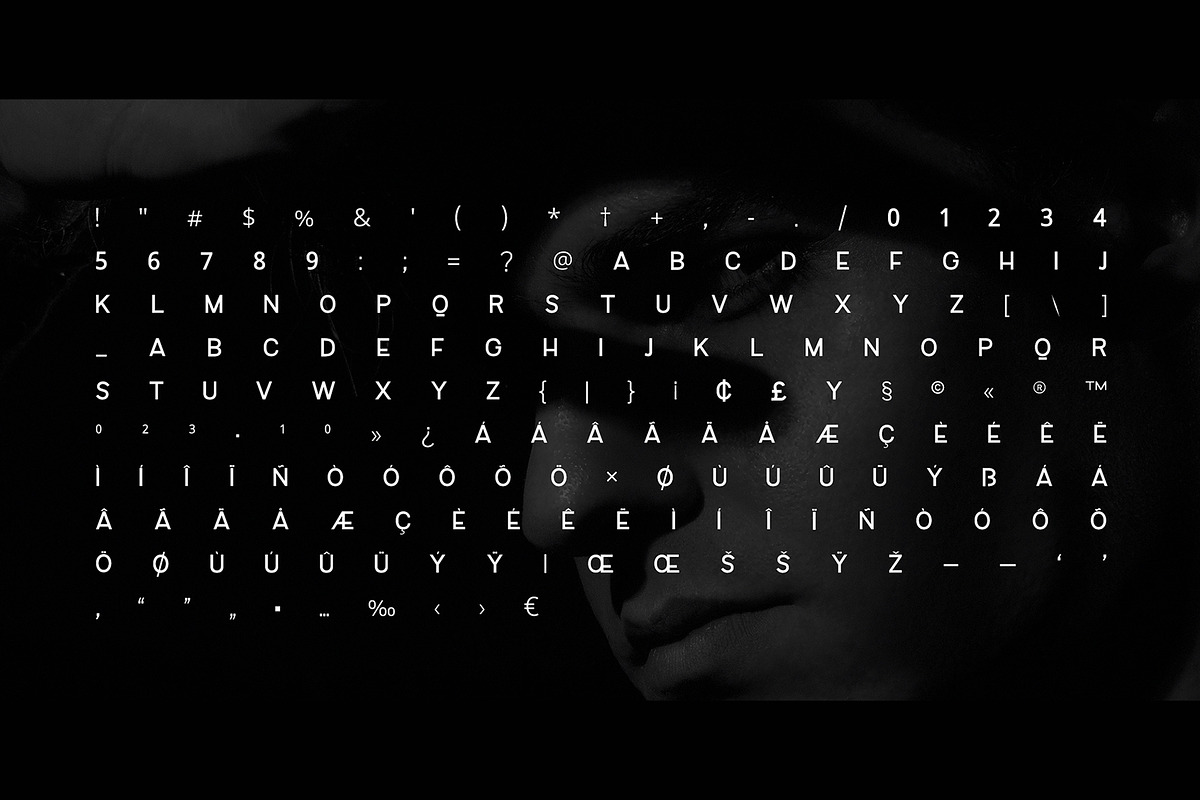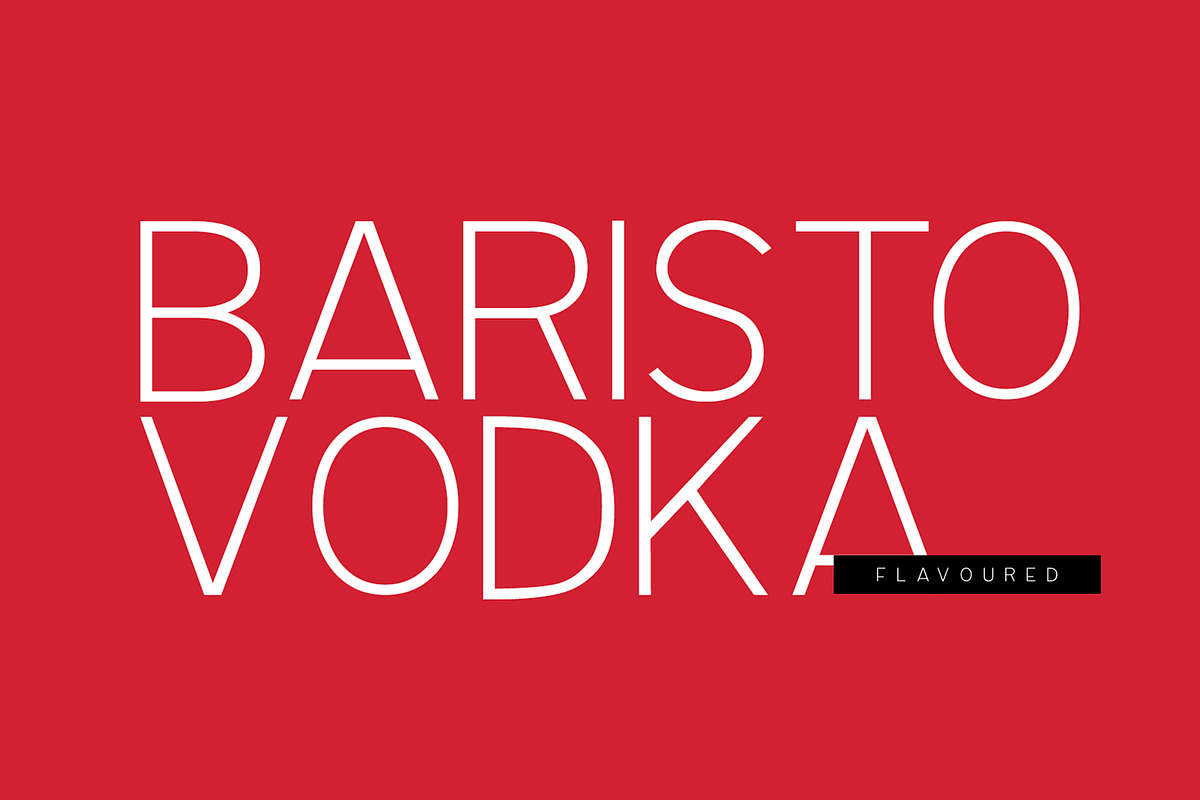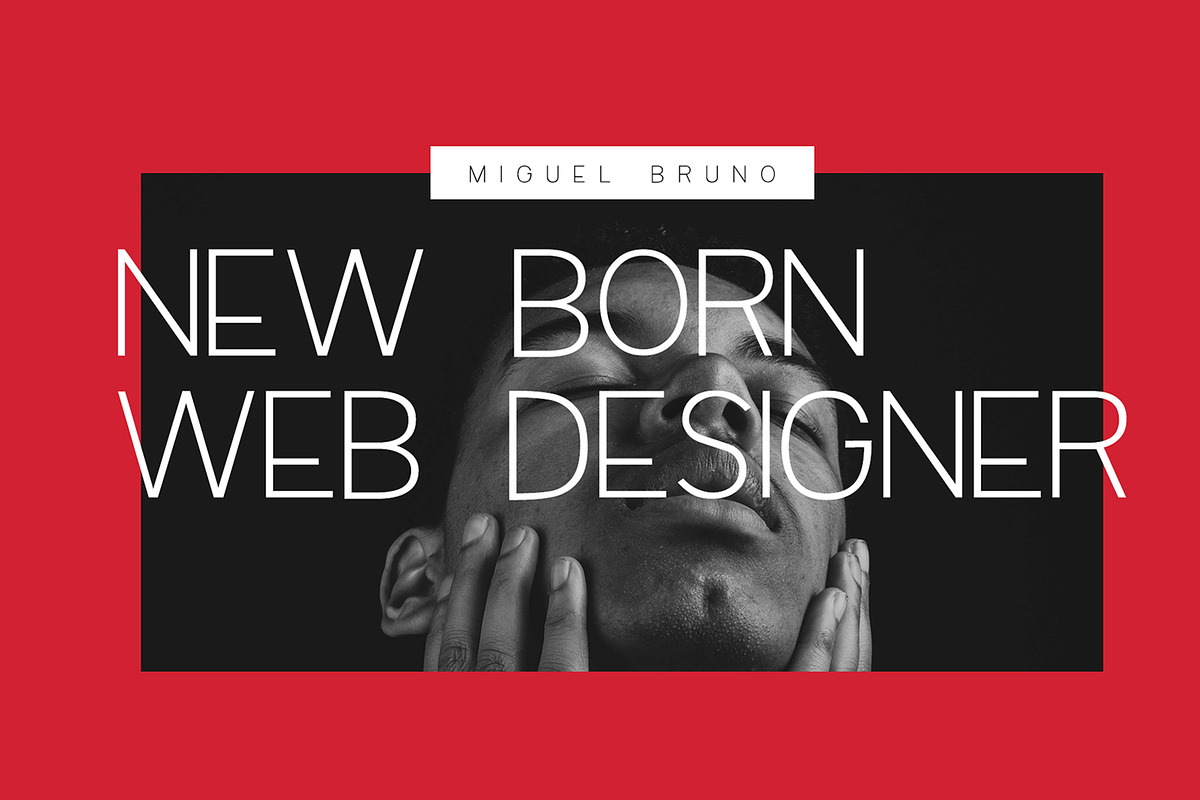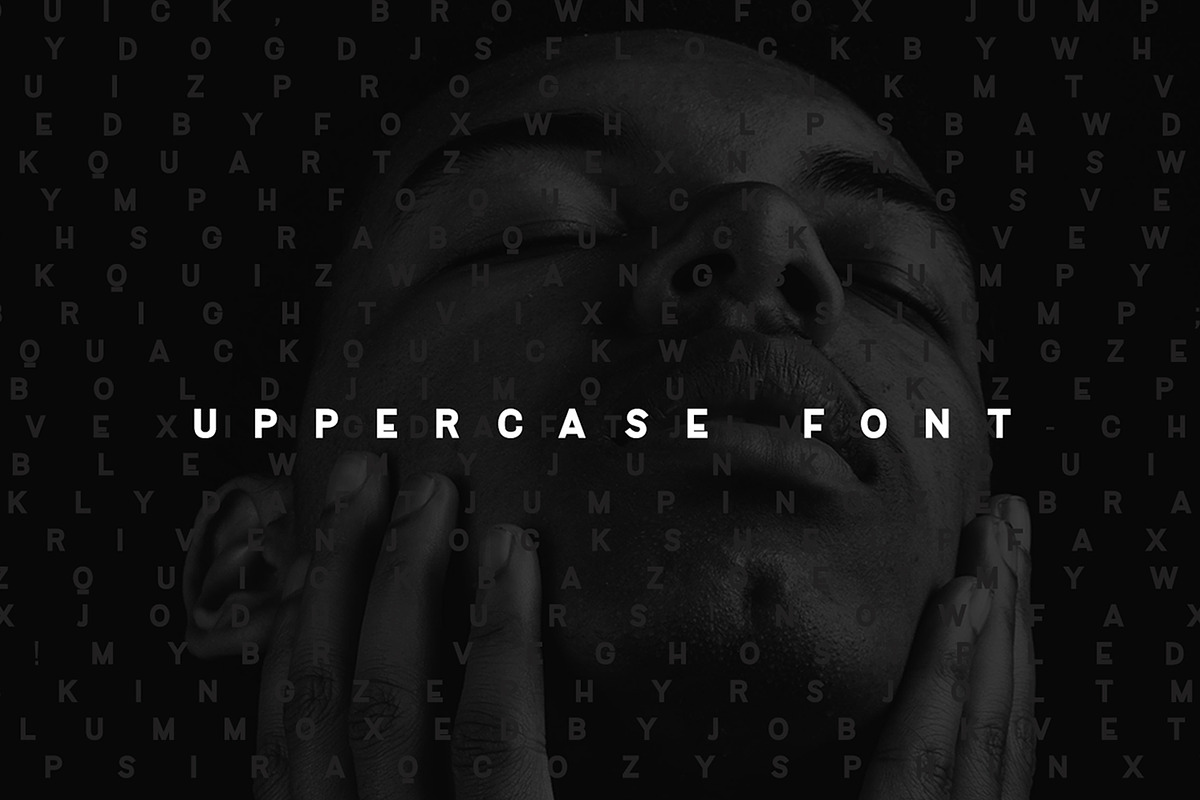
Baristo Display Typeface
Baristo is a timeless Display typeface family of 9 weights made with simplicity in every aspect of design. Baristo is a Uppercase font. Created with a special focus on readability and the finest visual capabilities, this typeface can turn your design projects into something extraordinary. A total of 196 glyphs are included. Baristo is a perfect choice for graphic design, text presentation, web design, print, and display use.
The typeface can be an amazing option for beautiful branding, logo/logotype design projects, marketing graphics, banners, posters, signage, corporate identities as well as editorial design. Adding extra letter-spacing for the Caps will make this font perfect for minimal headlines and logotypes as shown in promo images here. Baristo typeface family comes with 9 weights (Thin / Light / ExtraLight/ Regular /Medium/ SemiBold / Bold /UltraBold/ Heavy) as well as Italic versions of all weights. The pack contains OTF, TTF, and Web Fonts as licensing options. HTML & CSS WebFont preset & demo is Included in the download pack.